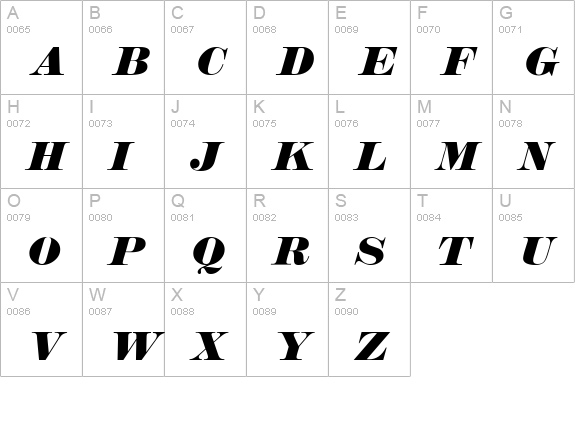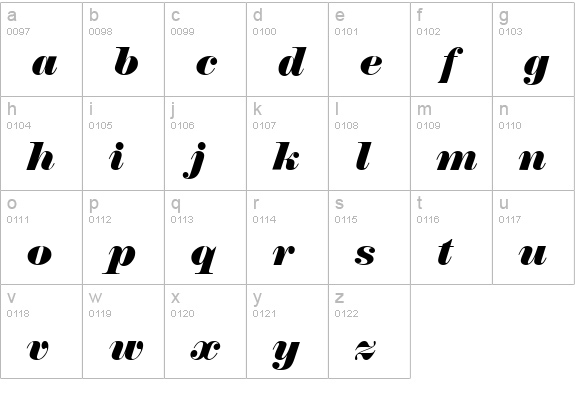
N790-Modern-Italic Font Details
N790-Modern-Italic is a distinctive, italic variant in the N790 typeface family \xE2\x80\x94 well suited to design and typography projects.
N790-Modern-Italic font is a sleek and stylish typeface that exudes sophistication and modernity. Its italicized design adds a touch of elegance to any project, making it perfect for branding, editorial design, and more. The clean lines and sharp angles of this font give it a contemporary feel while maintaining a sense of professionalism. This versatile font is free to download at FontsMarket.com, making it accessible to designers and creatives looking to add a touch of flair to their work without breaking the bank. Whether you're working on a website, poster, or logo, N790-Modern-Italic font is sure to make a statement with its unique and eye-catching style. Download it today and elevate your designs with this stunning typeface.